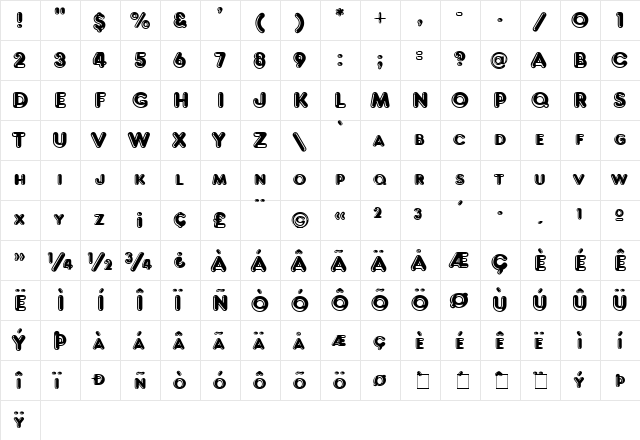
Frankfurter Hlt Regular
Design Context for Frankfurter Hlt Typeface
Frankfurter Hlt offers clean, dependable letterforms without strong stylistic allegiance, making it a practical choice for designers who need flexibility.